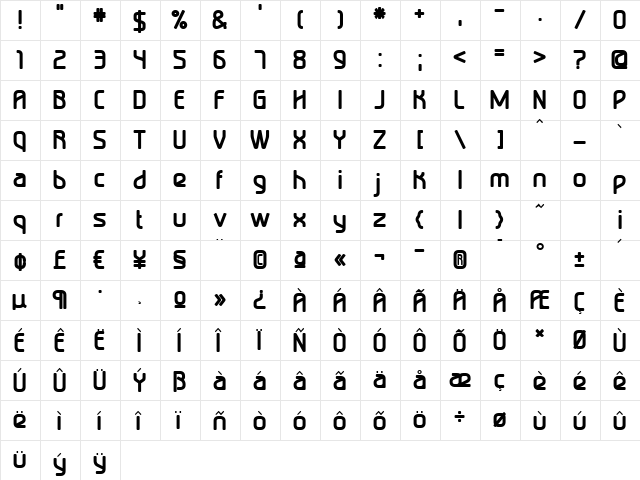
TurboBold Regular
Design Context for TurboBold Typeface
TurboBold offers clean, dependable letterforms without strong stylistic allegiance, making it a practical choice for designers who need flexibility. The heavy weight commands attention and anchors typographic hierarchies.